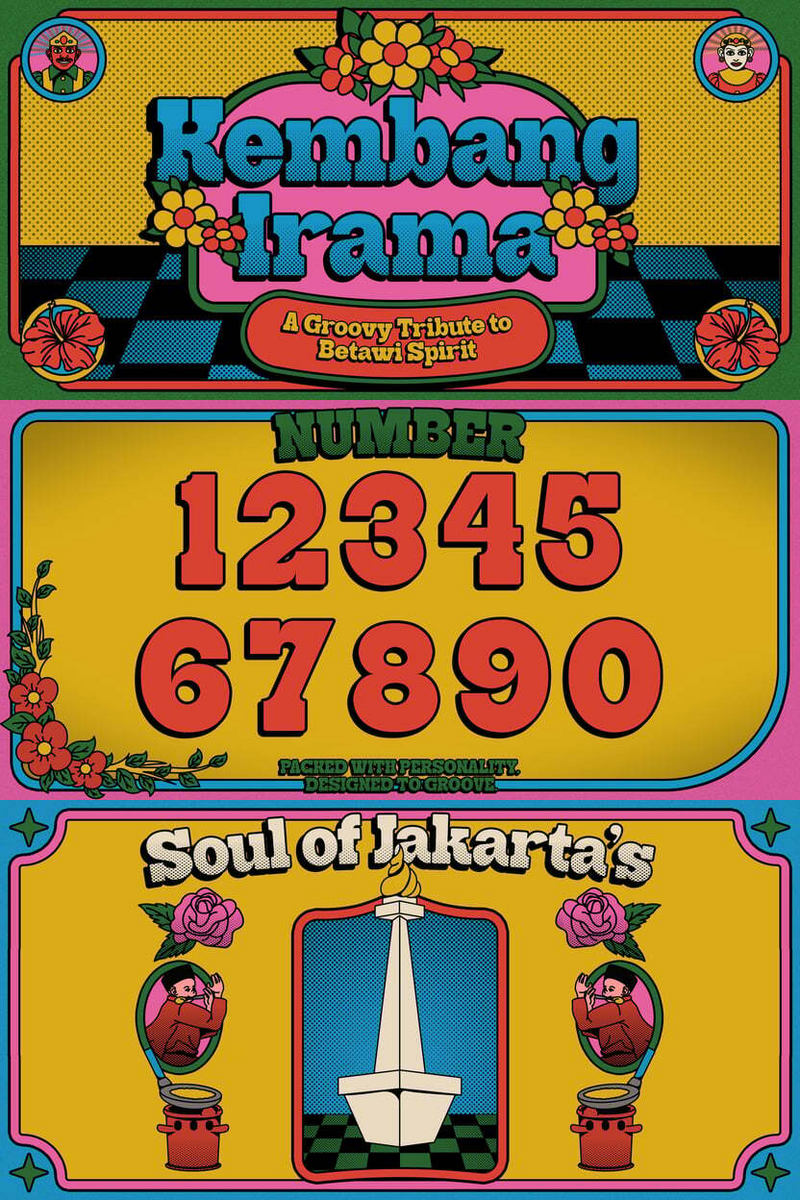
Kembang Irama: Crafting Iconic Indie Game Logos with Tech-Inspired Precision
Building an indie game is an act of creation, a fusion of code, art, and narrative. You pour your vision into every detail. But how does that vision speak volumes before the first line of dialogue or pixel of gameplay? It starts with your brand, your game's visual signature.
Meet Kembang Irama. This isn't just another font; it's a meticulously crafted typeface born from the nexus of digital innovation and clean, modern design. Its characters blend geometric precision with subtle, organic curves, evoking a feeling of sophisticated technology and quiet strength. Imagine the crisp clarity of a perfect algorithm, imbued with an artistic pulse. Kembang Irama feels like the future, today.
For indie game developers, Kembang Irama becomes a silent partner in your creative journey. It understands the need to stand out, to carve a unique niche in a crowded digital landscape. Generic typefaces can mute your message; Kembang Irama amplifies it. It's designed for impact, ensuring your brand isn't just seen, but felt.
The value proposition is clear: Kembang Irama empowers your game's identity with tech-inspired distinction. Its unique structure instantly communicates innovation and forward-thinking design, ideal for anything from cyberpunk thrillers to futuristic puzzle adventures.
Kembang Irama: Engineer Your Game's Identity.
Picture this:* Your studio's logo, perhaps "Quantum Echo Games," rendered in Kembang Irama. Its clean, confident lines immediately convey a commitment to polished, innovative experiences. The font's inherent tech vibe subtly hints at the digital craft behind your games, making your brand instantly recognizable and memorable in a competitive marketplace.* Or, the title of your next game, "Nebula Drift," presented with Kembang Irama. The font’s distinctive character sets the tone – sophisticated, perhaps a little mysterious, and undeniably modern – before a single frame of gameplay loads.* Beyond logos, Kembang Irama elevates your in-game UI, making menus intuitive and visually cohesive. It brings a sleek professionalism to marketing materials, social media graphics, and website typography. Every touchpoint reinforces your game's cutting-edge appeal.
Explore Kembang Irama and discover how its tech-inspired DNA can shape the narrative of your next big project. Let your game’s visual identity resonate with innovation.